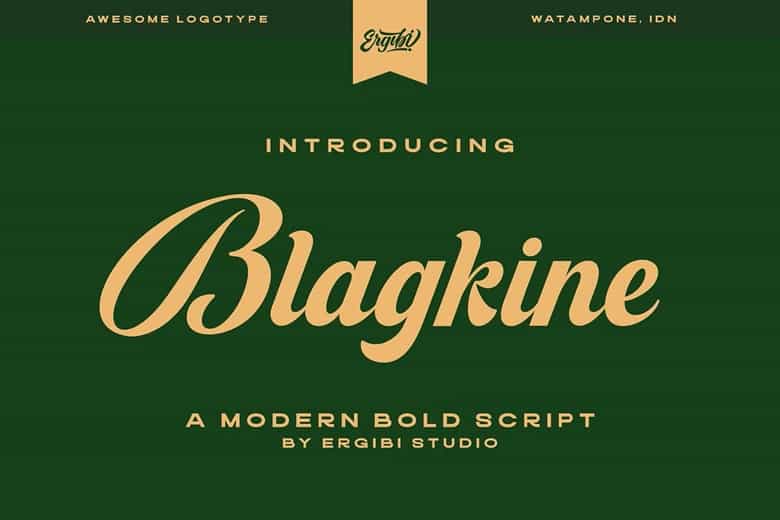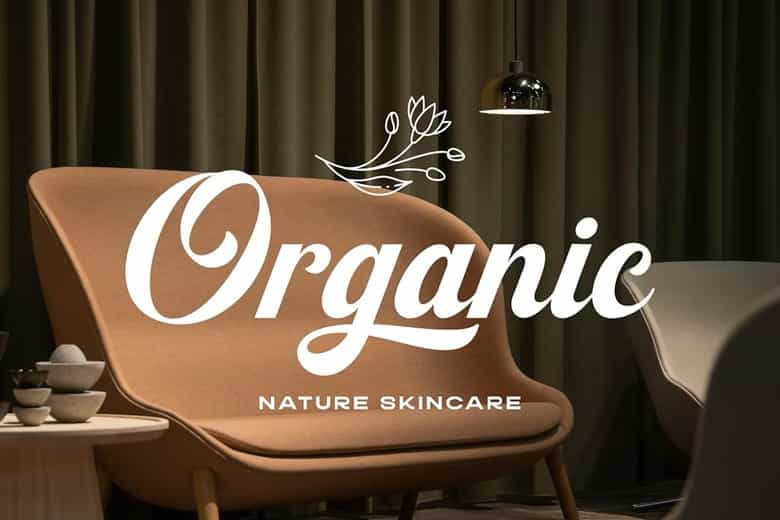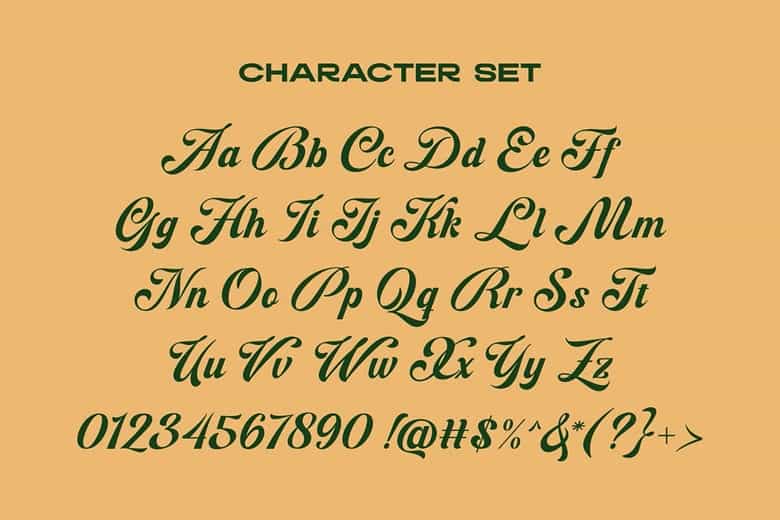
Blagkine is a brave script font that features a classic style. With stylistic sets, ligatures, contextual alternates and multilingual support, this font gives you more options to work with and makes every creative project easy to achieve your vision.